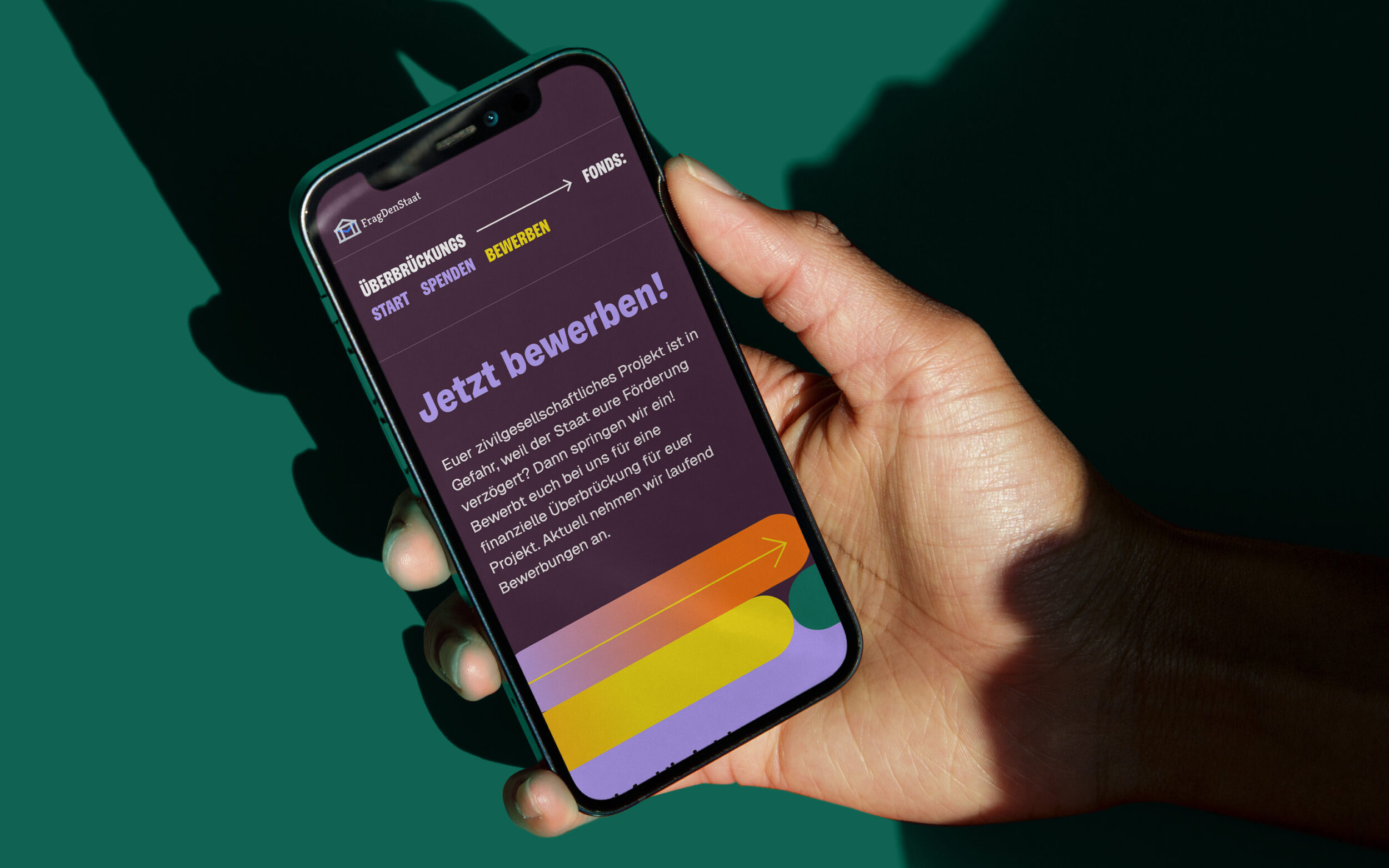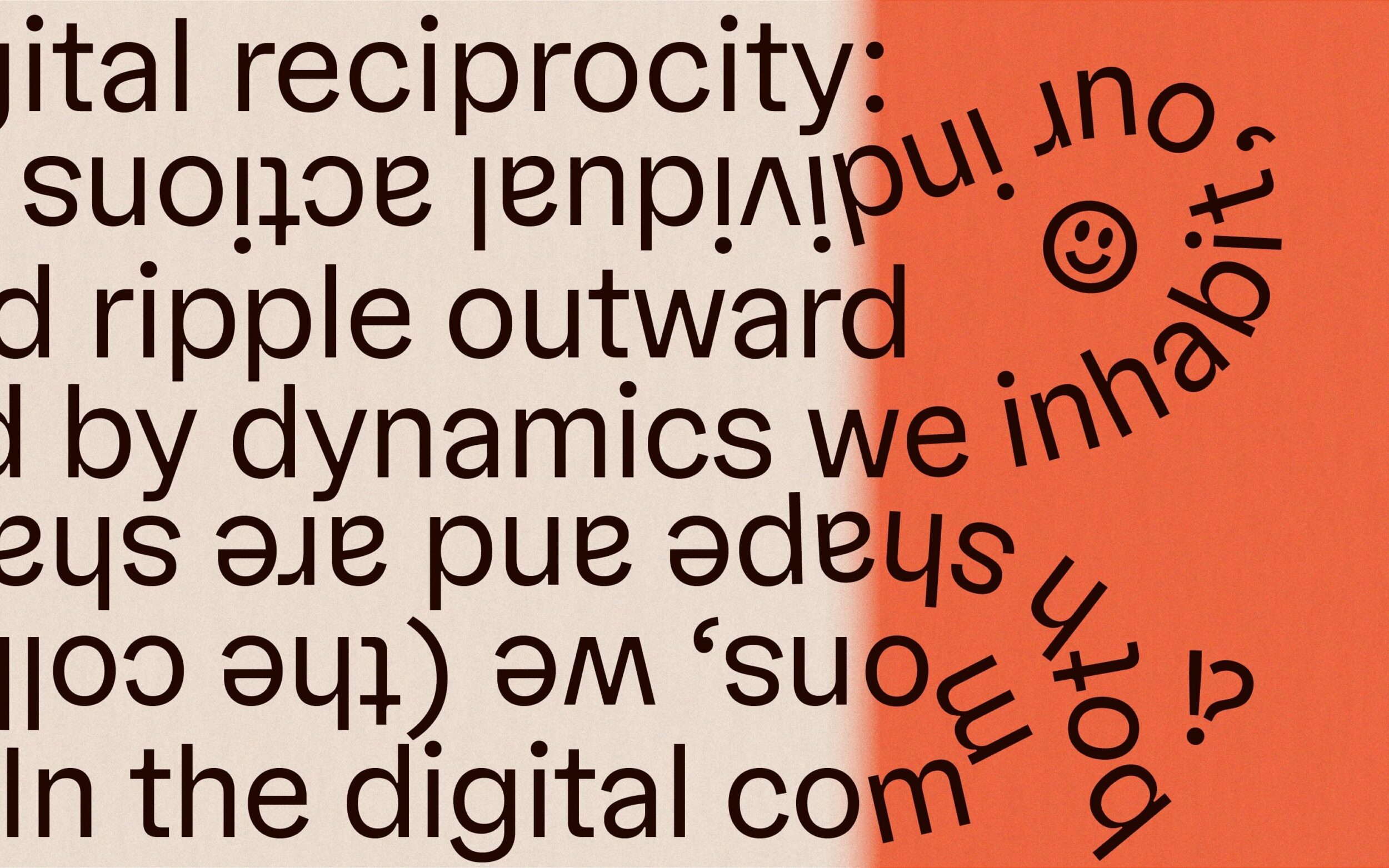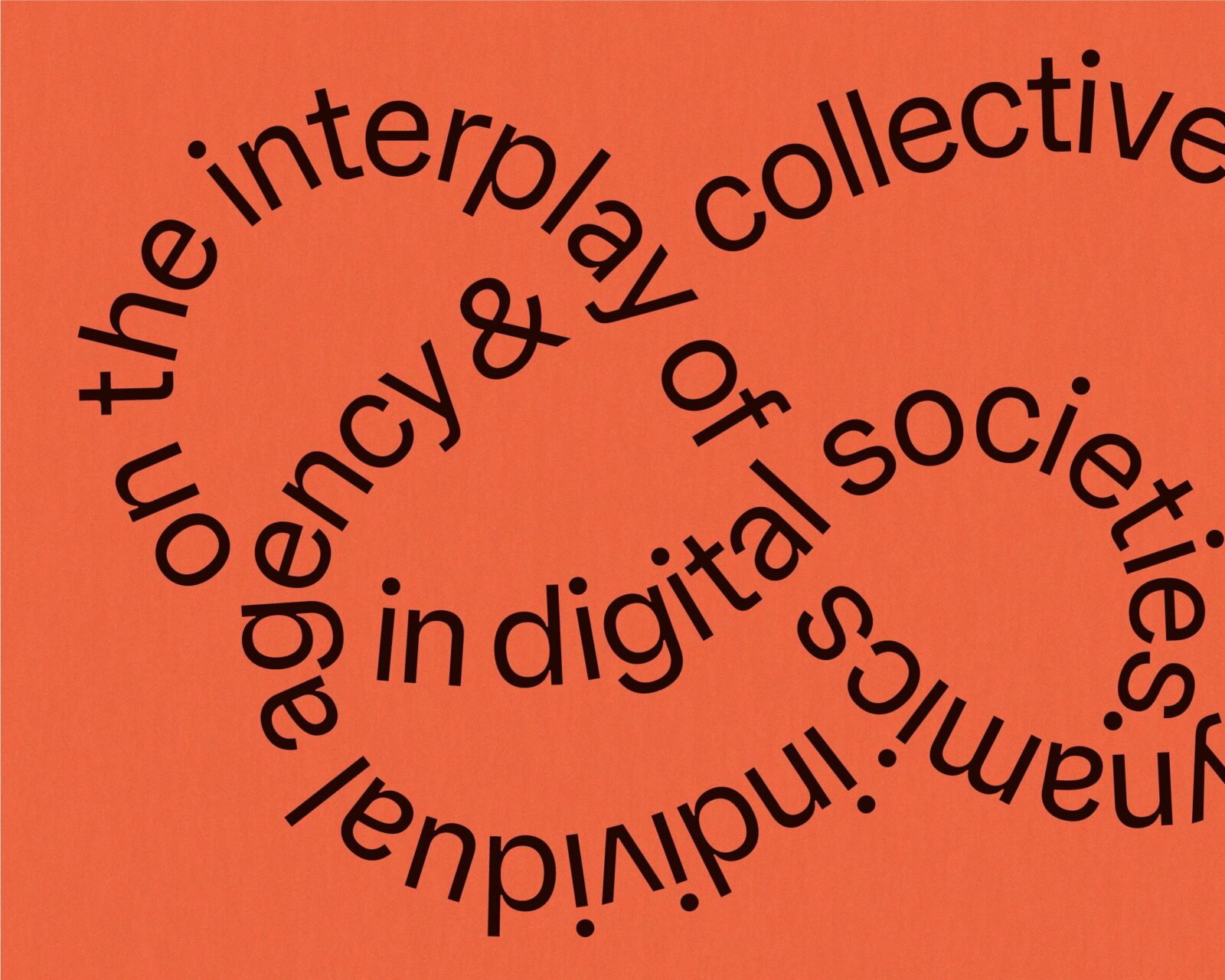
Gregory Grotesk
Design with charisma, perform with utility.
Gregory Grotesk may have a friendly and positive personality, but when it comes down to it this charismatic typeface is hard working and super-functional, balancing the playful qualities in its geometric construction.
Whether used for branding or information design, Gregory Grotesk balances a distinct, recognisable look at large sizes with functional typography for interfaces and texts. Matching the smooth texture of familiar system fonts, but showing a real, offbeat personality up close, Gregory’s a joyful take on your usual go-to sans serifs.
Gregory speaks differently: charming quirks gleaming through the solid shapes of a stable sans. Alongside some extravagant top-heavy letter shapes, it features rounded inner corners in the angular junctions. Reimagining wood type printing, their trapped inked flavour brings a handmade patina to sterile digital environments. With no ink traps, strokes thin at joints to compensate in a tapering reminiscent of 19th-century Grotesques: eye-catching moments of contrast and character, they celebrate small type displayed big.
Ranging from compressed to normal widths in the typical thin-to-black spectrums of weight, but it’s an individual alternative to conventional Grotesques. Gregory Grotesk is a quirky system of 24 individual styles united in one agile Variable Font with weight and width axes.
With Greek and Cyrillics approved by native designers, Gregory Grotesk is good company in more than 270 languages, including Vietnamese. Gregory Grotesk is carefully engineered with a range of OpenType Features for ambitious typography, offering a set of relaxed oldstyle figures, legibility alternates, language specific localisation and delightful symbols and emojis.